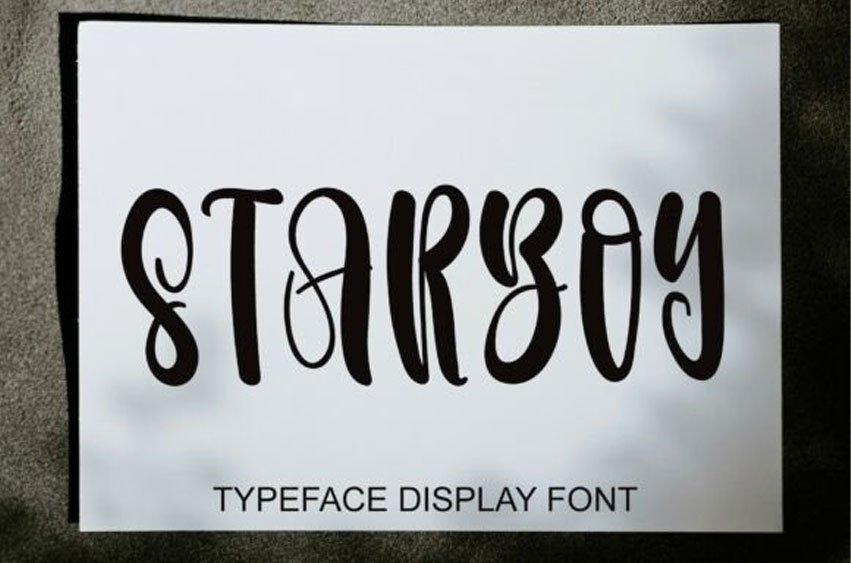
Starboy Font is a bold and captivating handwritten font that commands attention with its strong, distinctive letterforms. Designed to stand out, this powerful font blends creativity and impact, making it perfect for projects that need an eye-catching and memorable typographic style.
Whether you’re working on branding, posters, or digital designs, Starboy adds a touch of bold magic to your visuals.